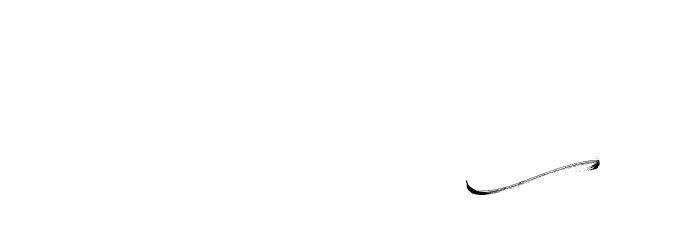
Misrelly Swashes Font
This font exudes elegance and sophistication with its graceful swashes and flowing lines. The characters are designed with a calligraphic style, featuring delicate curves and flourishes that add a touch of refinement. The strokes vary in thickness, creating a dynamic and visually appealing contrast. This font is perfect for projects that require a touch of class and artistic flair, such as wedding invitations, luxury branding, and high-end product packaging. Its unique style makes it stand out, offering a blend of traditional calligraphy with a modern twist.
Elegant calligraphic font with graceful swashes and dynamic contrast.
- Font: Misrelly Swashes
- Proposed Projects: Ideal for wedding invitations, luxury branding, and artistic designs.
- Category: Script
- Use Case: Logos, Invitations, Branding